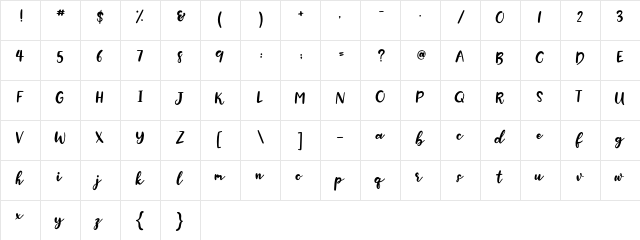
Snow Globe Sample
Design Context for Snow Globe Typeface
Snow Globe is a composed and adaptable typeface that performs quietly and consistently across a wide range of design contexts.
Pro Tip: Pair Snow Globe with a font of contrasting weight or personality to build a more expressive typographic hierarchy.